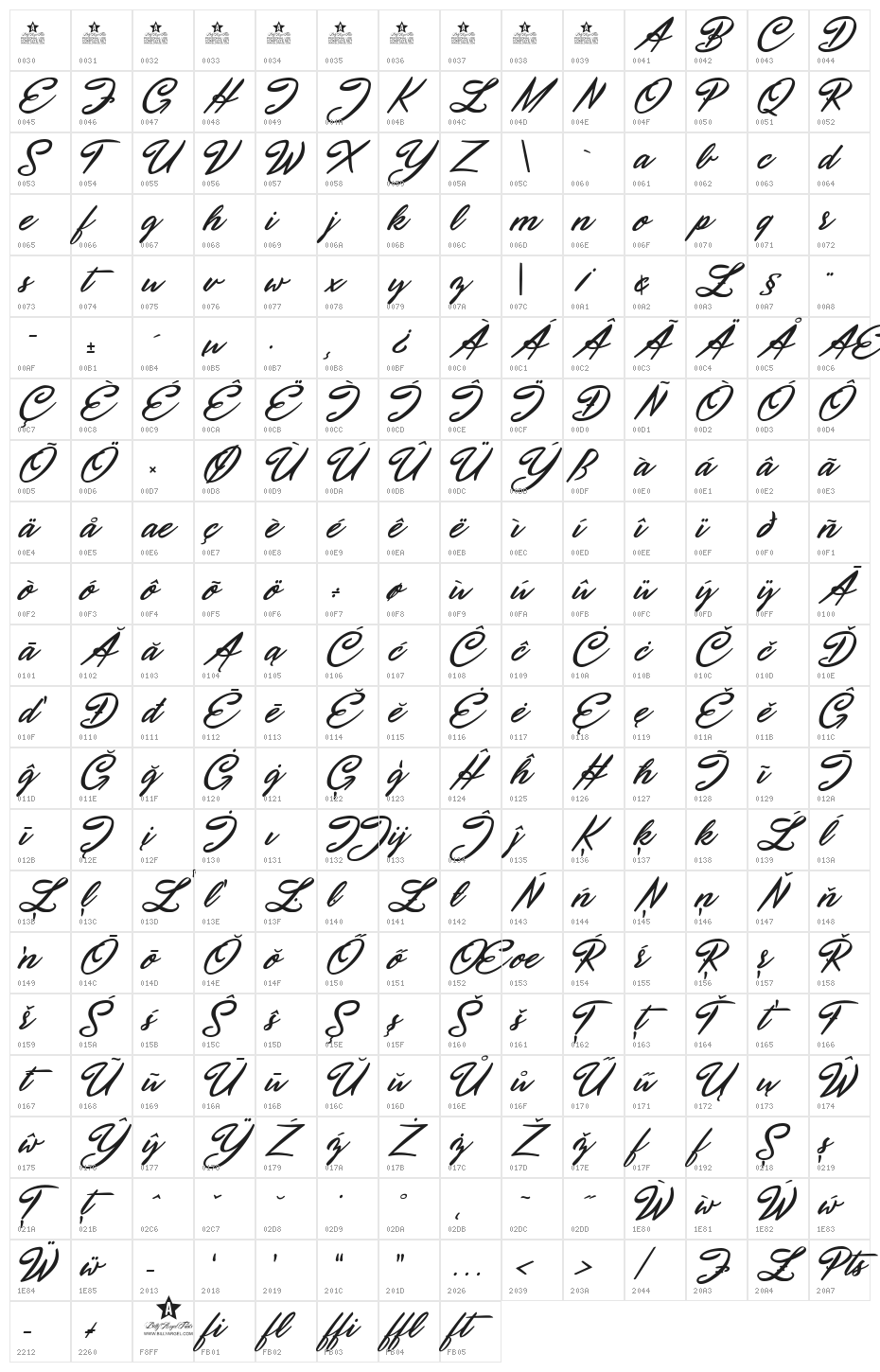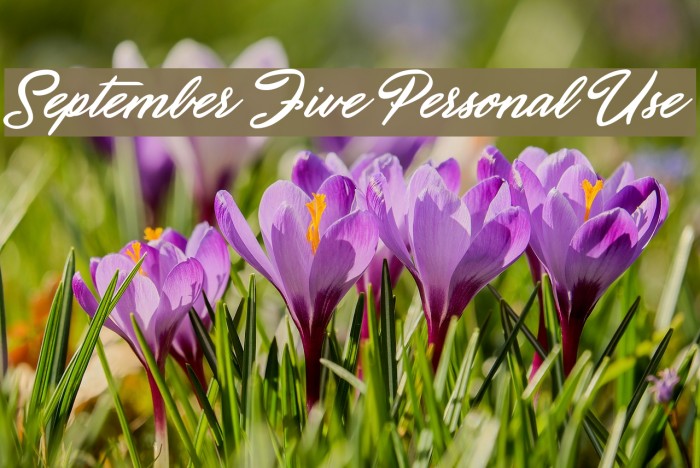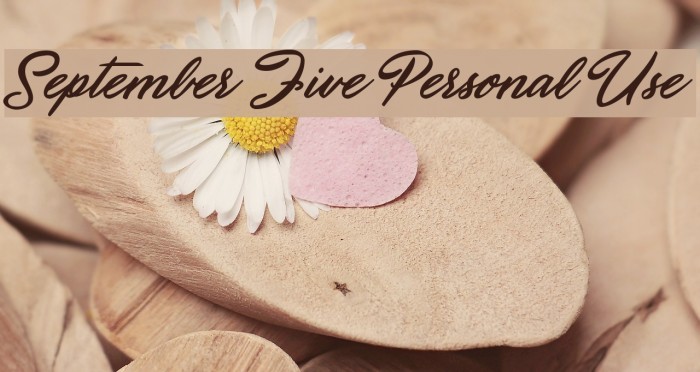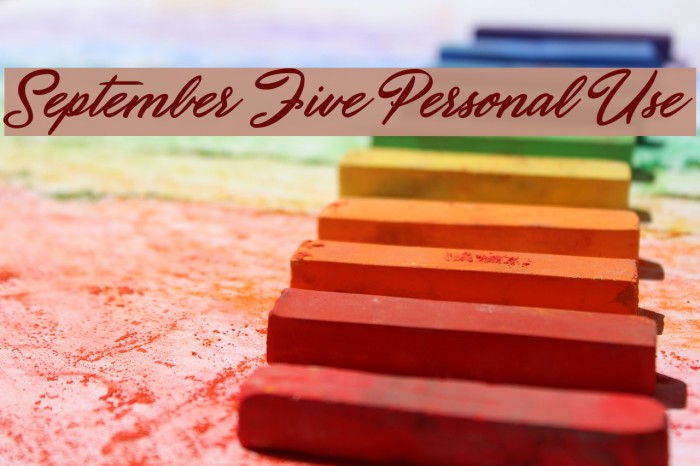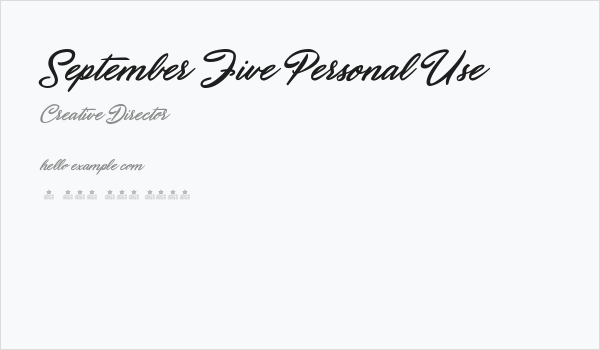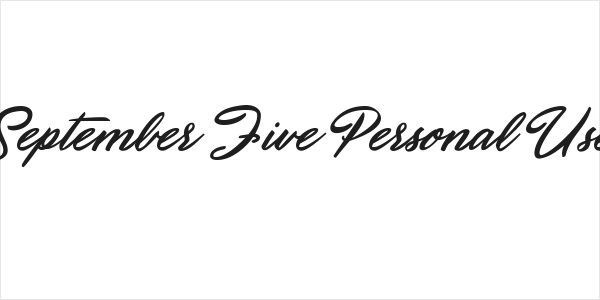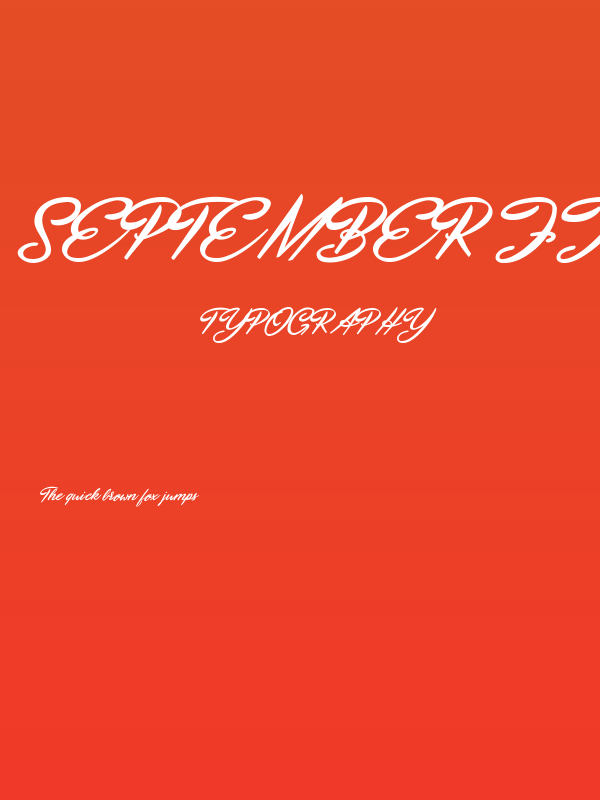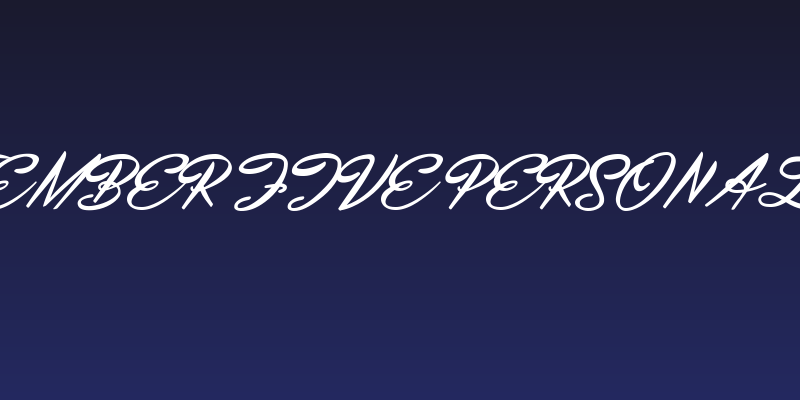
September Five Personal Use Font
September Five Personal Use Description
This font features a dynamic and flowing script style, characterized by its elegant and cursive letterforms. The uppercase letters exhibit a sophisticated flair with smooth, sweeping curves and a sense of motion, while the lowercase letters maintain a consistent rhythm and fluidity. The font's design is reminiscent of traditional calligraphy, offering a modern twist with its bold strokes and artistic flair. The characters are well-balanced, providing a harmonious appearance that is both stylish and readable. This font is ideal for projects that require a touch of elegance and personality.